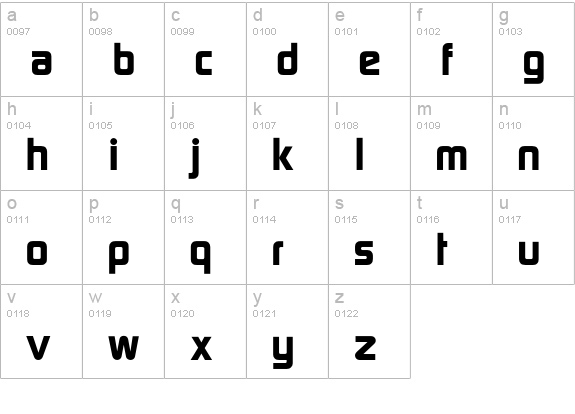
SolHeavy Font Details
SolHeavy is a visually stunning, bold and impactful font that commands attention and leaves a lasting impression. With its strong and powerful design, this font is perfect for creating eye-catching headlines, logos, posters, and other creative projects. The letters of SolHeavy are meticulously crafted with precision and care, resulting in a unique and distinctive typeface that stands out from the crowd. Its sharp angles and clean lines give it a modern and contemporary feel, while still maintaining a sense of elegance and sophistication. One of the best things about SolHeavy is that it is free for personal and commercial use, making it accessible to everyone. Whether you're a professional designer or just starting out, this font is a valuable addition to your toolkit. To get your hands on SolHeavy, simply head over to FontsMarket.com, where it is freely available for download. FontsMarket.com is a trusted source for high-quality fonts, and their extensive collection ensures that you'll find the perfect font for any project. So why wait? Download SolHeavy today and unleash your creativity with this exceptional font. Make a bold statement and captivate your audience with its powerful presence.